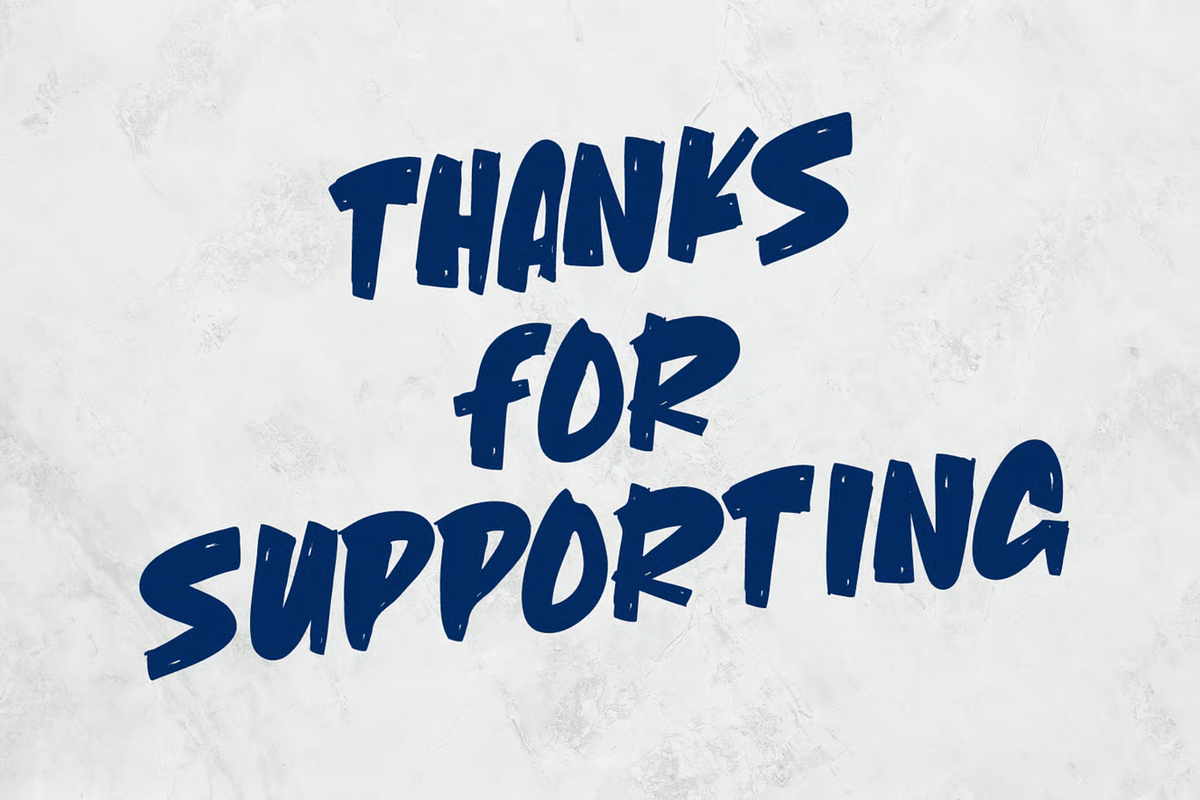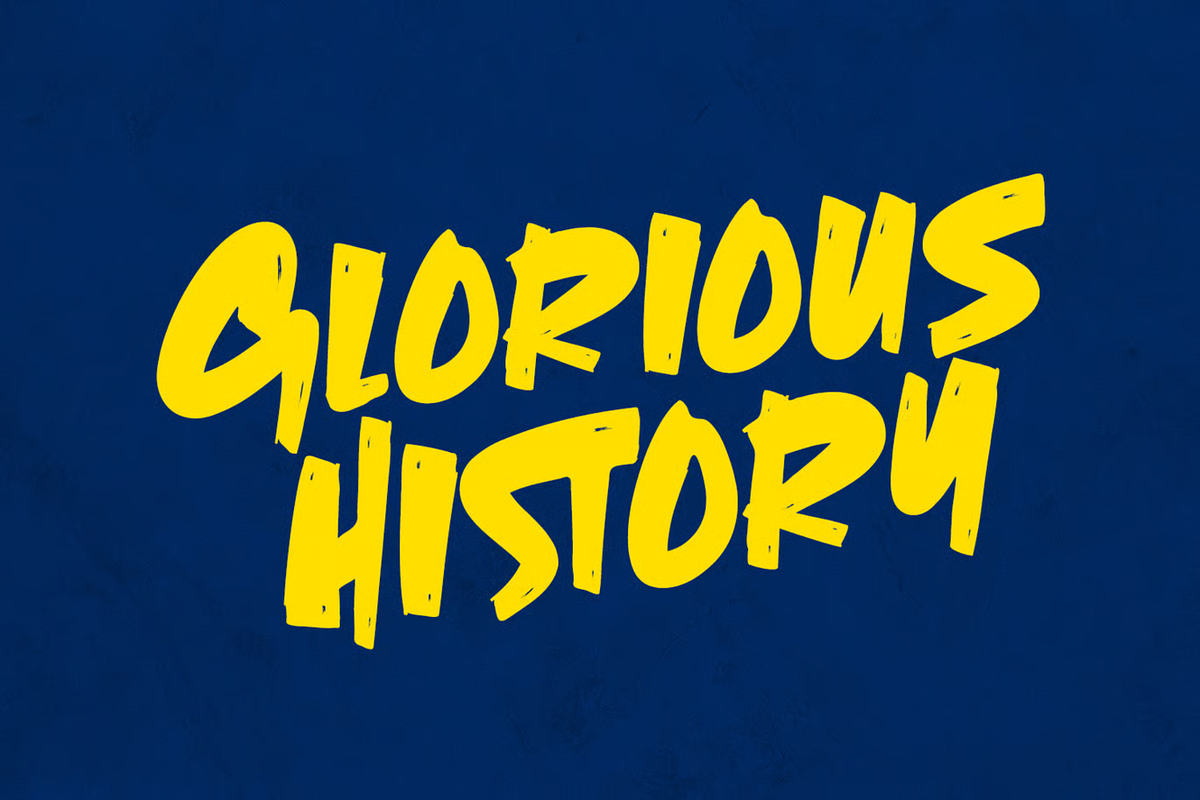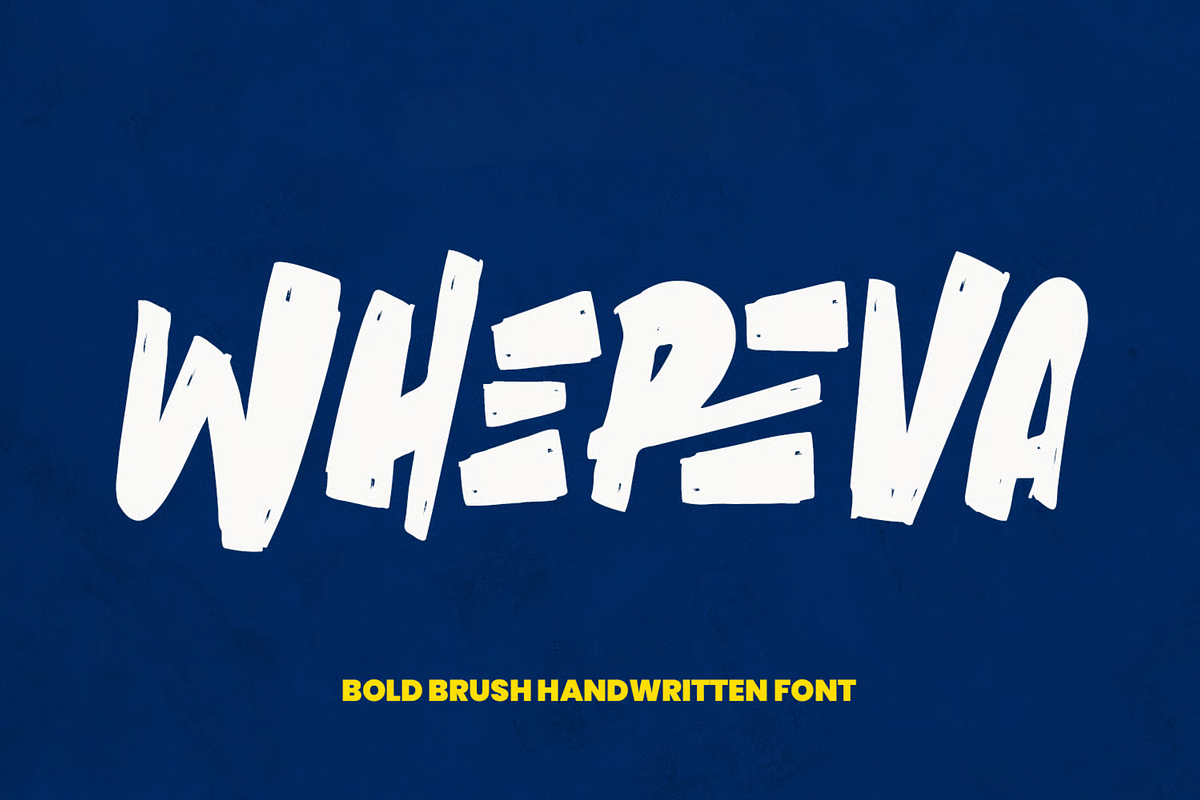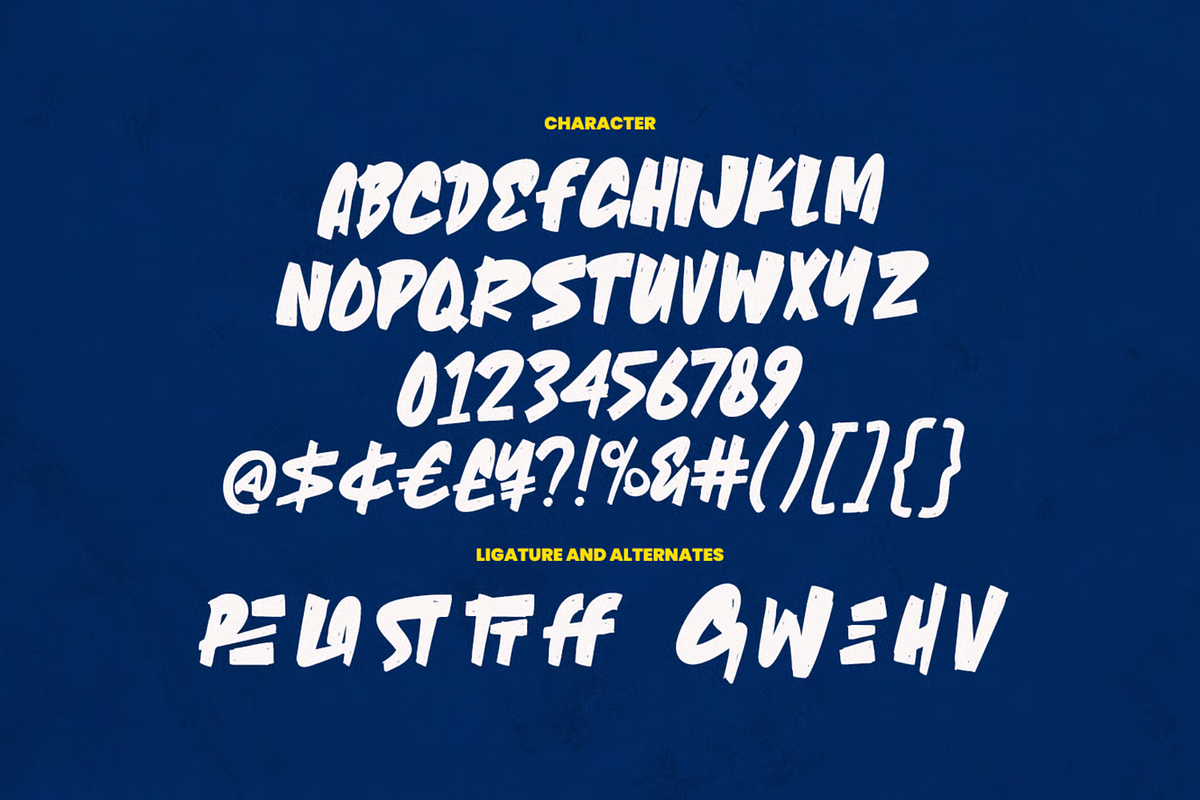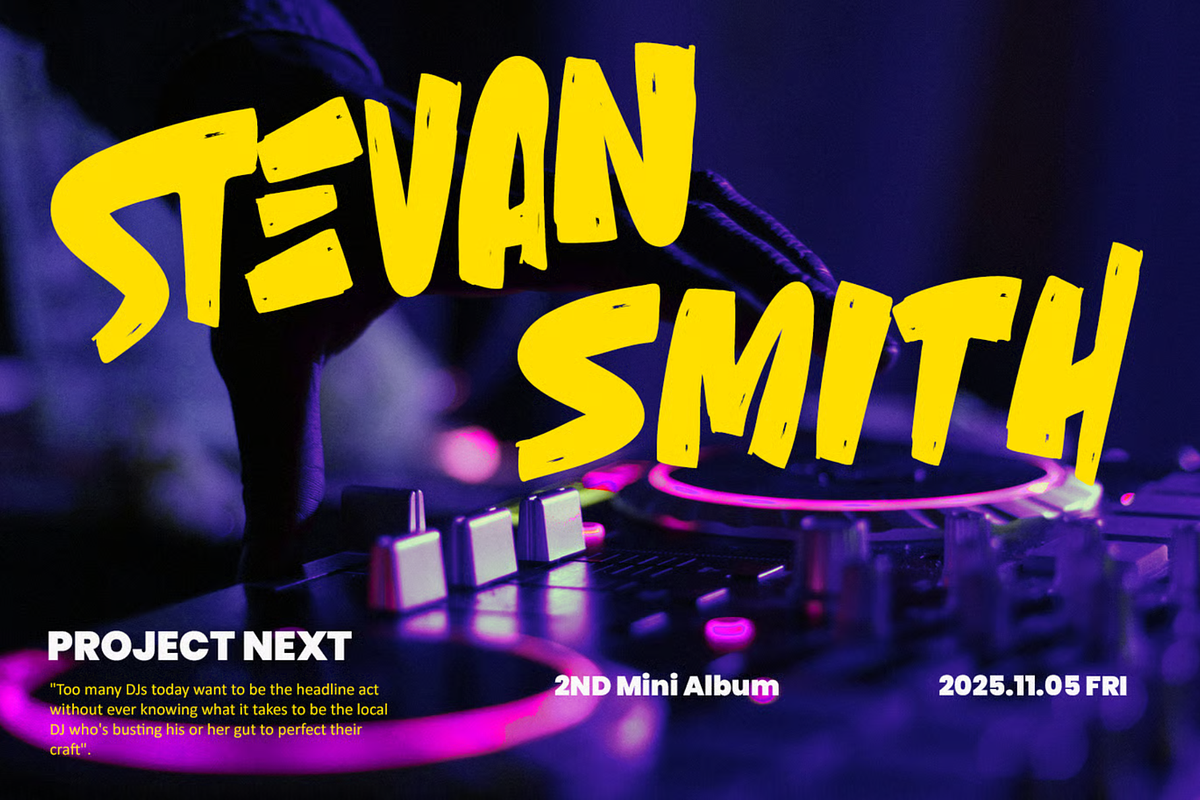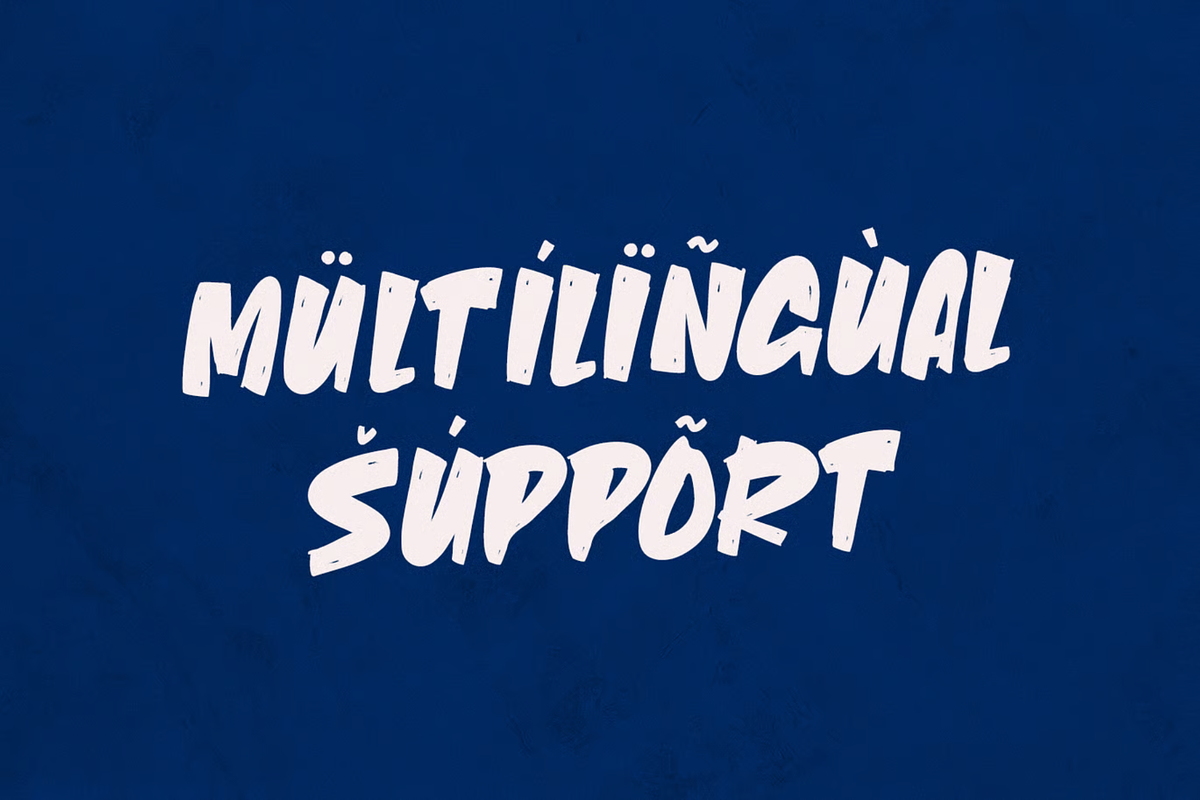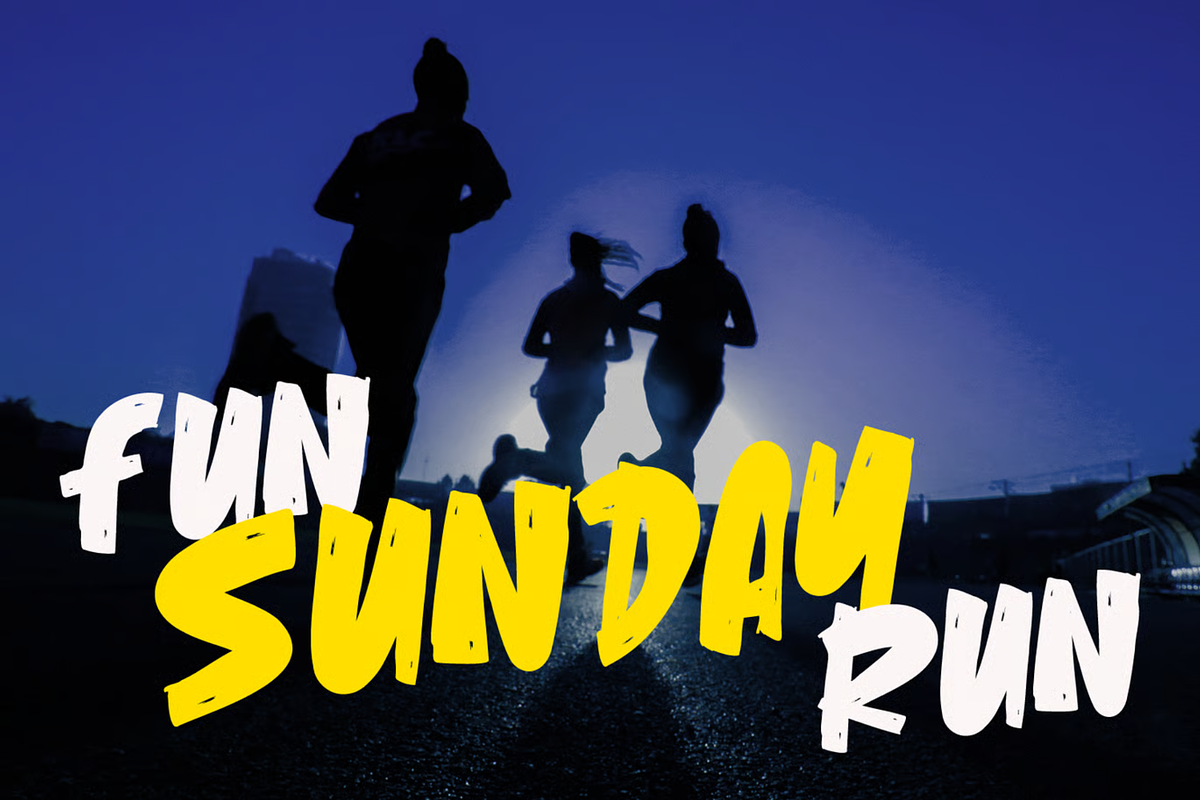
Whereva Bold Brush Handwritten Font
Whereva is a fun, bold, and characterful handwritten brush font. Created by Maulana Creative, this font offers an expressive, energetic, and modern feel, making it suitable for designs, branding, webfont, music, and even social media content. With its dynamic brush style and bold strokes, Whereva captures attention and adds a bold touch to any design. This font is ideal for those looking to create a street art, urban style, or creative typography feel in their graphic design work.
Uppercase letters
Numbers and punctuation
Unique brush style design